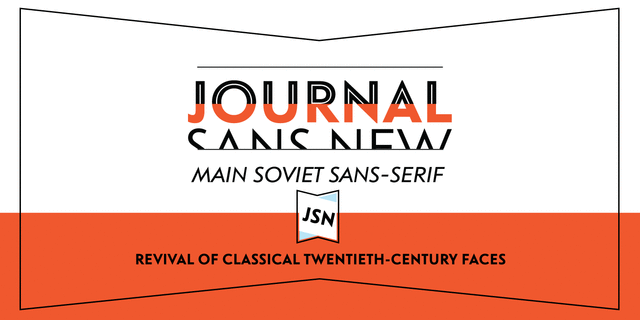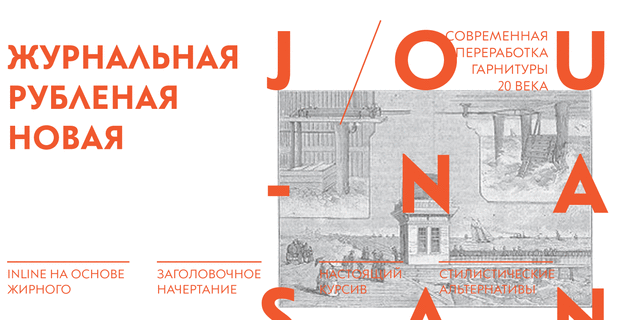
Journal Sans New
About Journal Sans New is a contemporary redesign of Journal Sans typeface which was developed in 1940–1956 by the group of designers under Anatoly Shchukin. It was based on Erbar Grotesk by Jacob Erbar and Metro Sans by William A. Dwiggins. Journal Sans New is a geometric sans-serif face with the pronounced spirit of the 1st half of the 20th century. It can be used both for body text and display purposes. Designed by Maria Selezeneva with the participation of Alexandra Korolkova. Released by ParaType in 2014.
Features of font family Journal Sans NewThe hit of the decade:
Hit of 1930s Hit of 1940s Hit of 2010s Similar to fonts from logos, games, movies:
Close to historical original:
Associations for font family Journal Sans NewTypeface personality and character:
Soviet, clear, available, elementary, correct, flat, straight, simple, laconic, sharp, solid, minimalistic, accurate, urban, strict, serious, schematic, engineering, clever, clean, comfortable, convincing, motivating, expressive, original, hipster, fashionable, wooden, high-quality, youth, voiced, festive, glad, positive
society, city, transport, airport, Metro, navigation, medicines, innovations, architecture, science, Internet, mobile communications, design, scheme, engineer, coworking, education, Instagram, water, policy, news, football, bus, pharmacy, perfumery, shampoo, cosmetics, fashion, clothes, footwear, interior, entertainment, accessories, bar, cafe, recreation, attraction, decoration, celebration, cocktail Typeface associated with age: